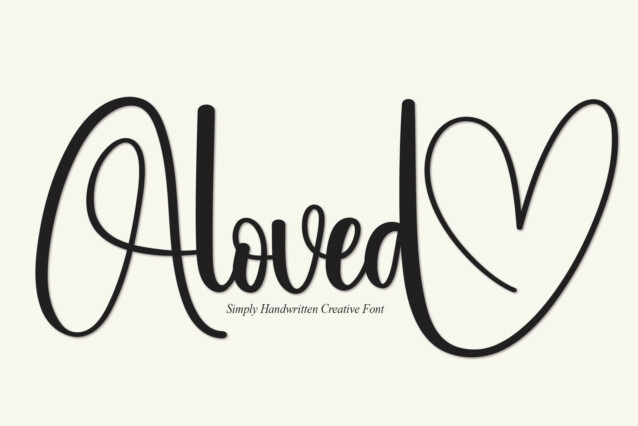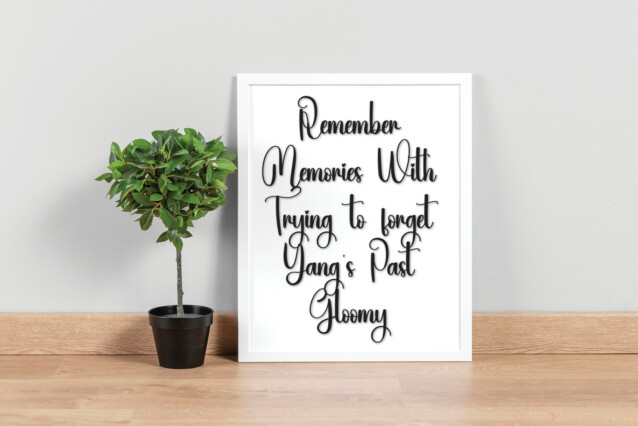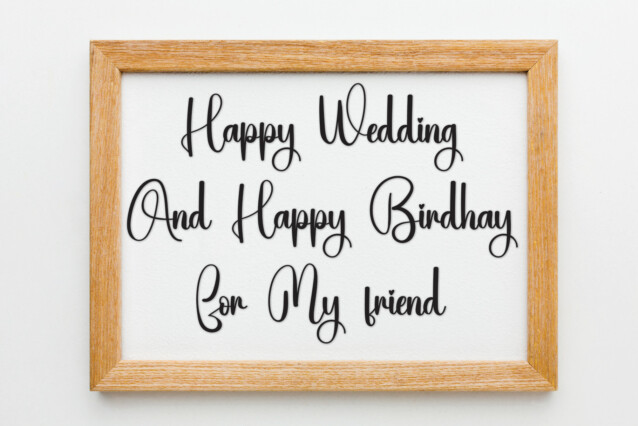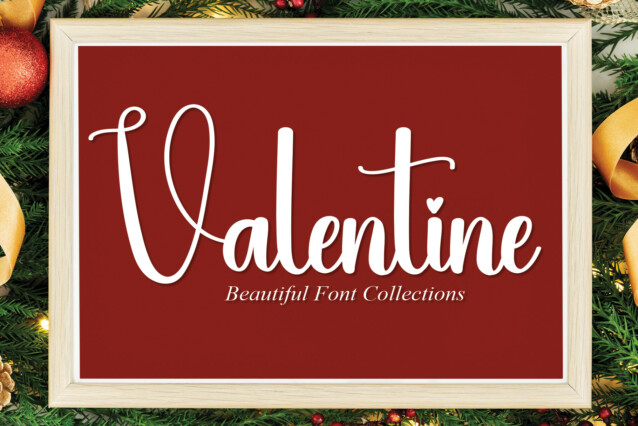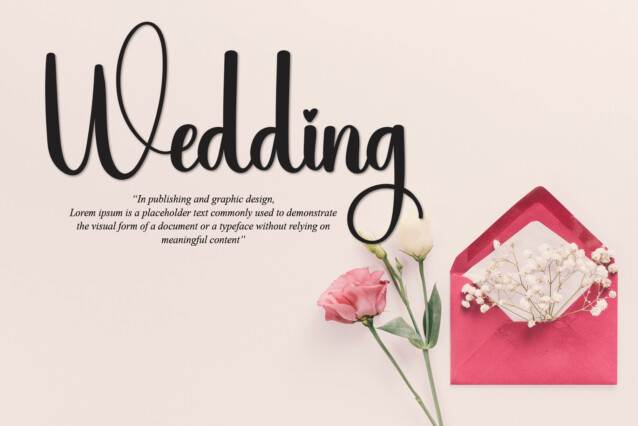
Aloved Script Font
Aloved Script Font is a stylish and elegant handwritten script font. It looks beautiful on a variety of designs requiring a personalized style, such as wedding invitations, thank you cards, greeting cards, logos, and so on.